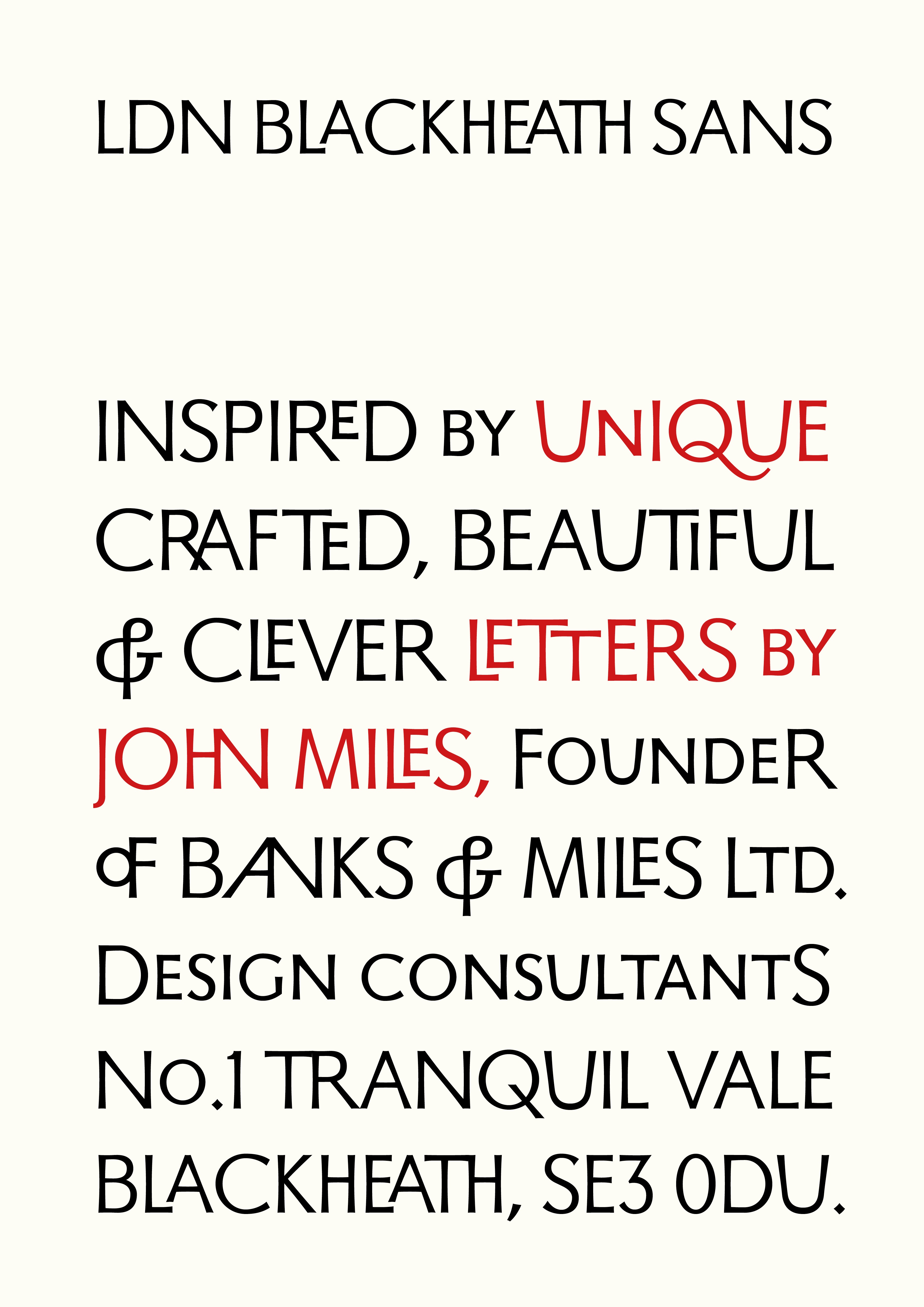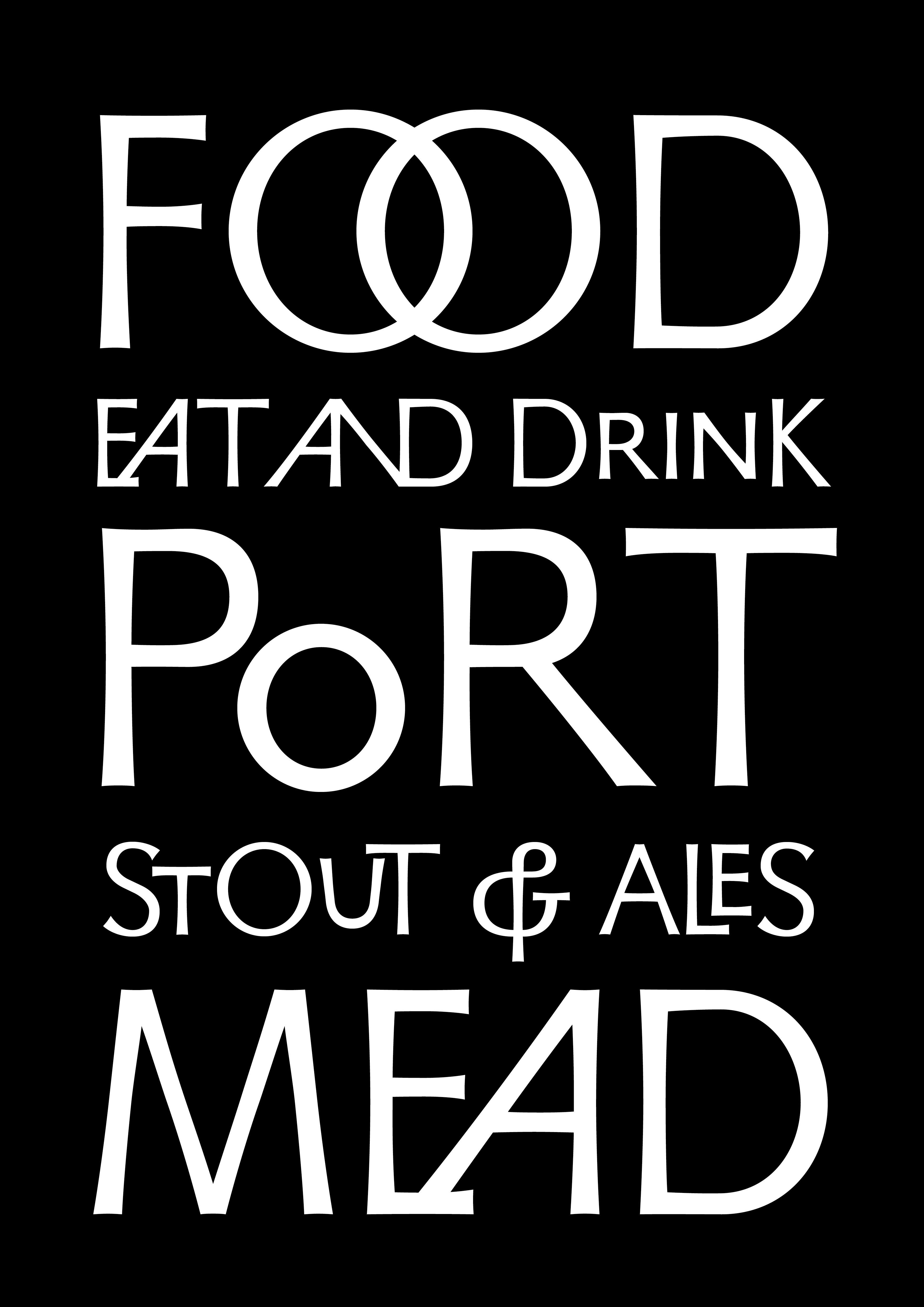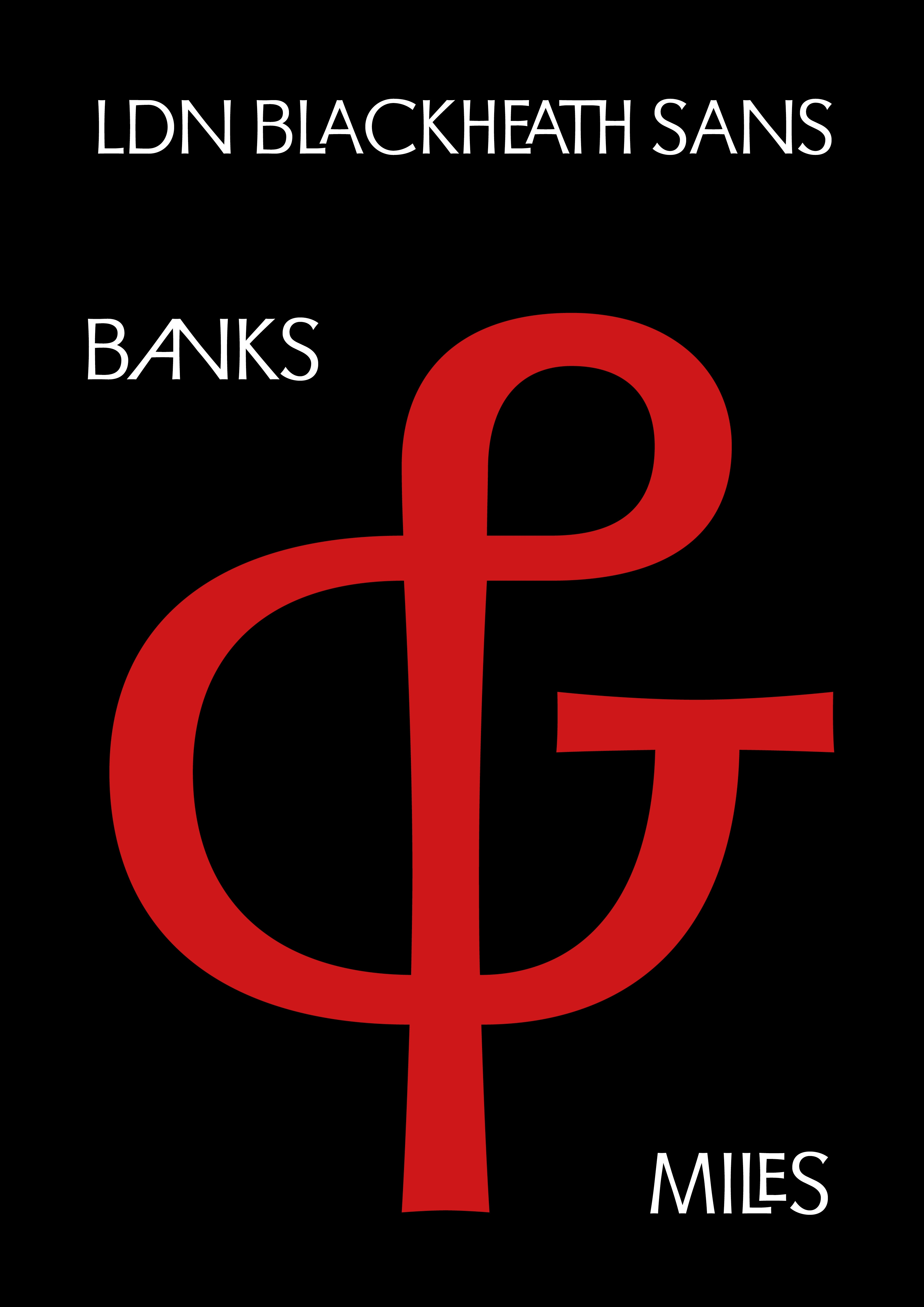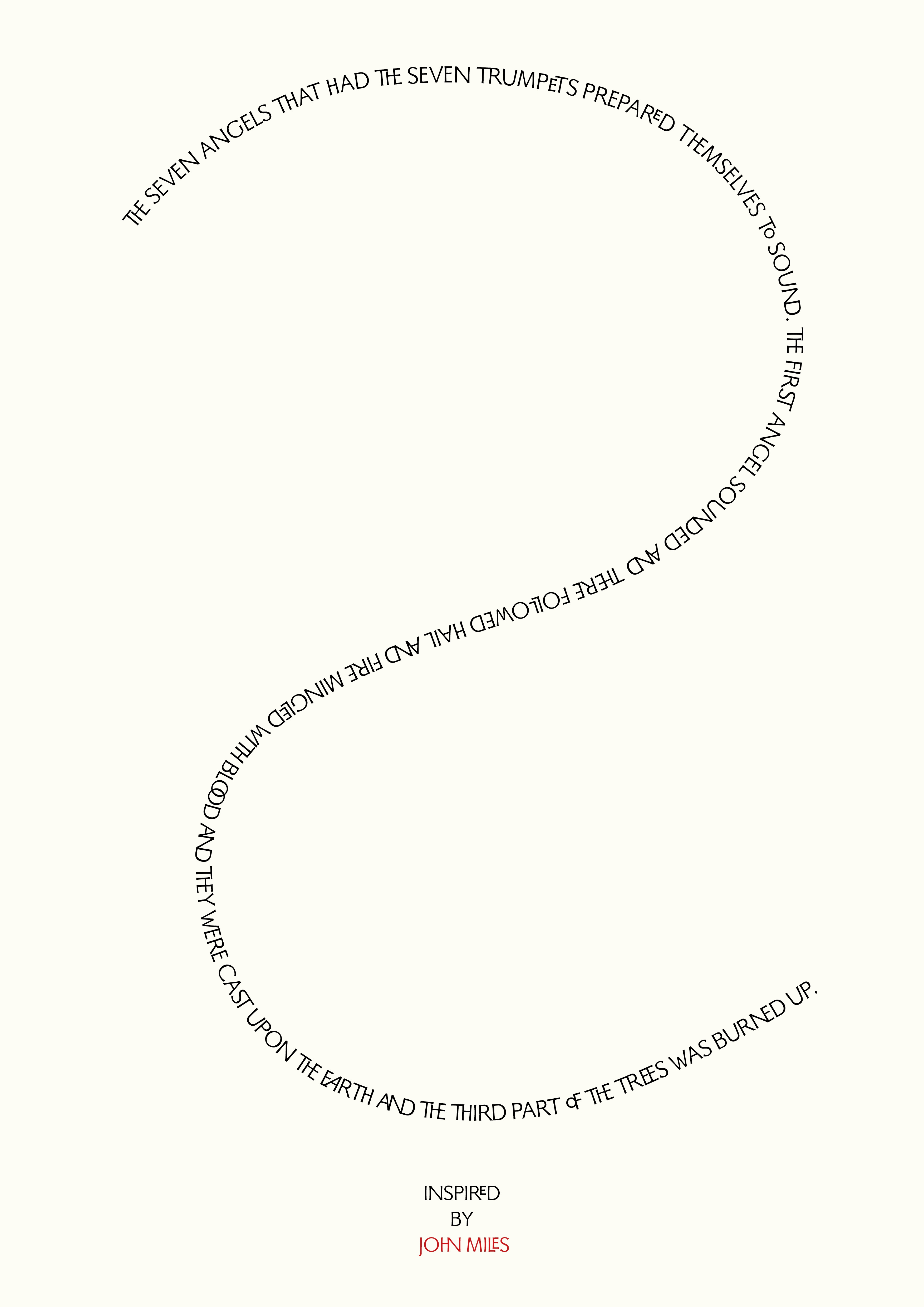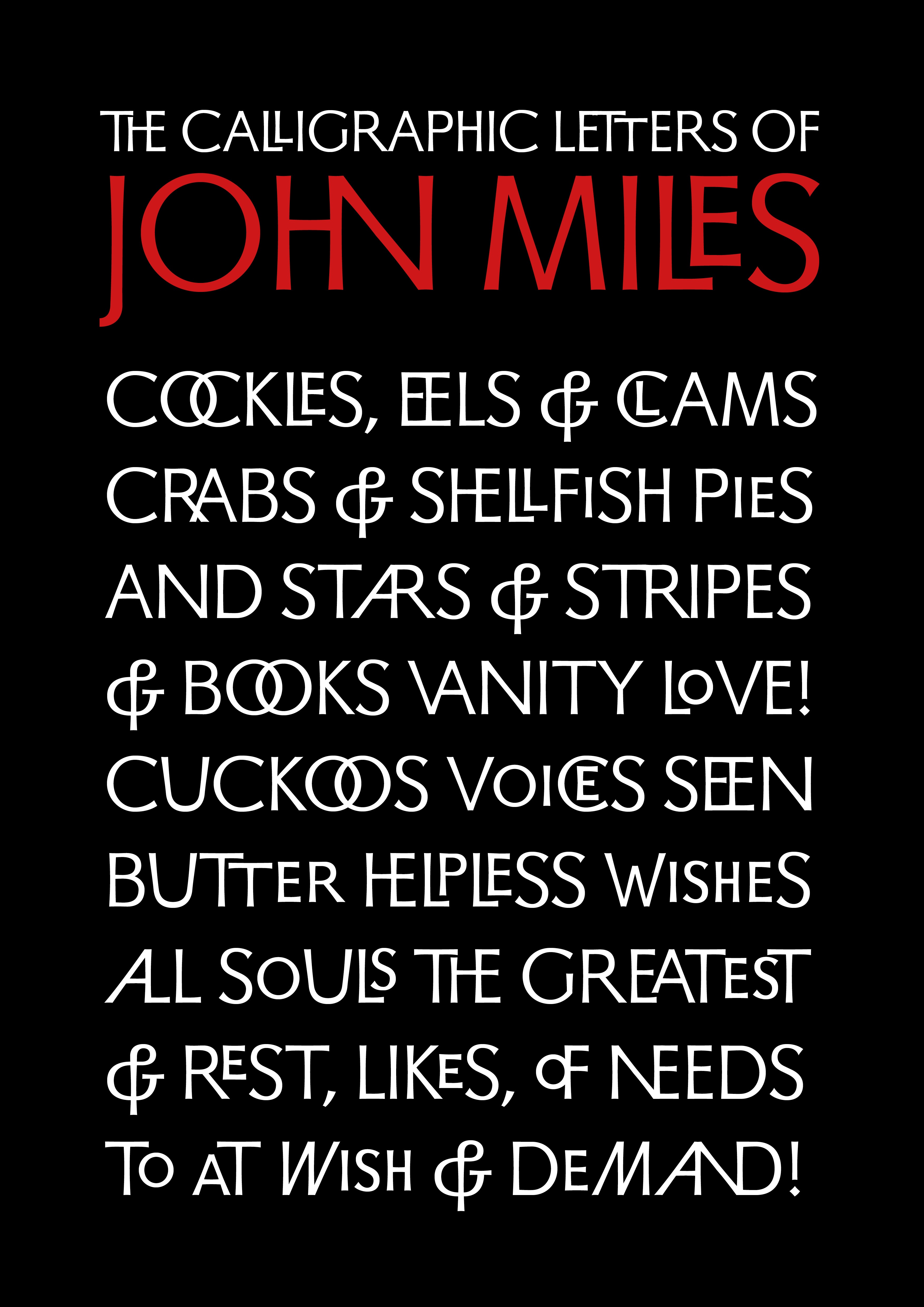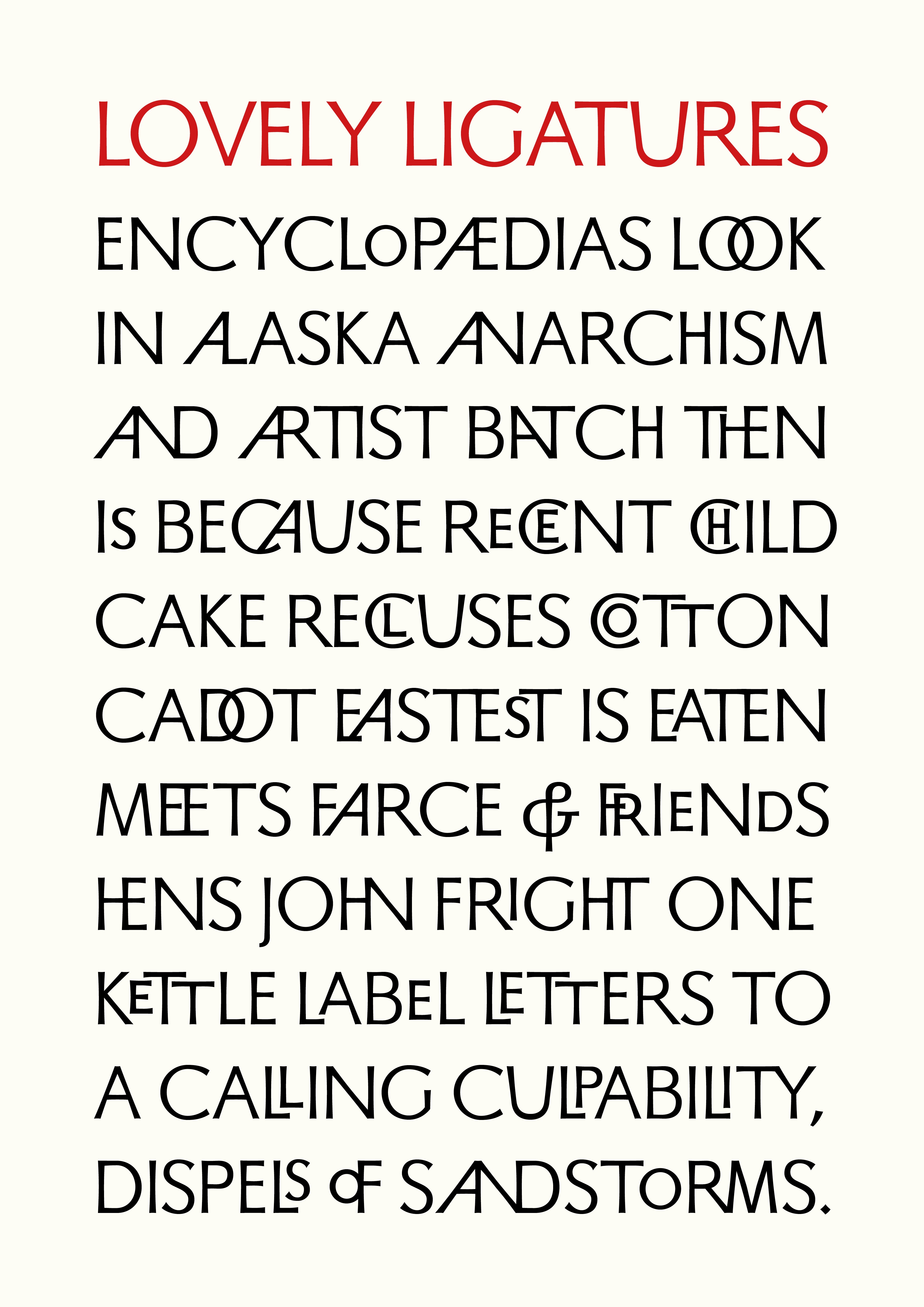
LDN Blackheath Sans
LDN Blackheath Sans, designed by Paul Harpin, was inspired by lettering on spiritual calligraphic paintings created by Paul’s former boss John Miles, of Banks & Miles. With the permission of John’s family the typeface will be dedicated to him.
John Miles was a design consultant based in Blackheath, where Paul still lives. John died on 27th December 2023. He was a kind man, a brilliant and thoughtful designer and boss, great fun to be around and much loved by his clients.
Harpin says “I loved working for John and I love the acrobatic ampersands he used in his art. What struck me about the lettering on the paintings was the vast array of ligatures John had created”. I have designed 90 ligatures. I asked his daughter if John was a religious man and she said no, but he thought the bible was a “bloody good read”.
Colin Banks and John Miles started the design consultancy Banks & Miles in 1958, initially in a basement in Ebury Street, then later in Grafton Street, and finally in the former Literary Society building in Blackheath.
Successful early work for London Zoo (a sign system for both Regent’s Park and Whipsnade) and the Consumers’ Association led to more prestigious projects, including corporate identities for the Post Office & British Telecom. Paul worked for John in 1982.
John would joke that their clients were often British, British everything: British Airports, British Telecom, British Council, British Rail, Pearson, Moulton Bicycles, London Transport… the list went on.
He was profoundly “English”, if that is a thing, but no little Englander, working for the EU long before the UK joined, and decades later arguing passionately against leaving.
LDN Blackheath Sans is a striking display face with tapered stems, available in a single Regular weight.
Crammed full of discretionary ligatures, and with a small cap lower case floating above the baseline, this inventive headline font provides a whole host of possible typographic pairings for the end user.